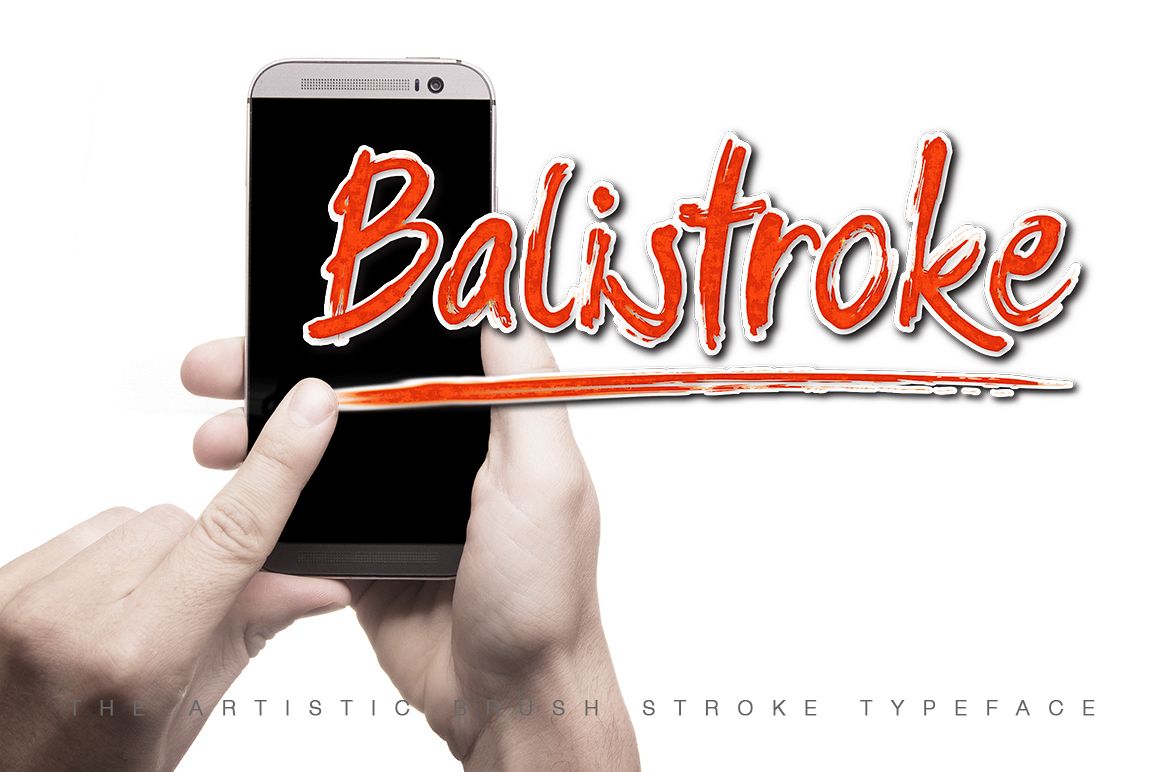
Balistroke Font
The Balistroke Font is a handmade dry brush stroke font. It is a decorative font, with which you can achieve a rough handwritten-type lettering feeling. great for logotype or title. It can also be used for your autography in
any graphic material. It can be used in all advertising materials, Perfect for brand projects, logos, product packaging, posters, invitations, greeting cards, news, blogs, everything including personal charm.
Balistroke Font features : Characters set A-Z, a-z, Numerals &
Puctuations (OpenType Standard), Accents (Multilingual characters),
and Alternates.